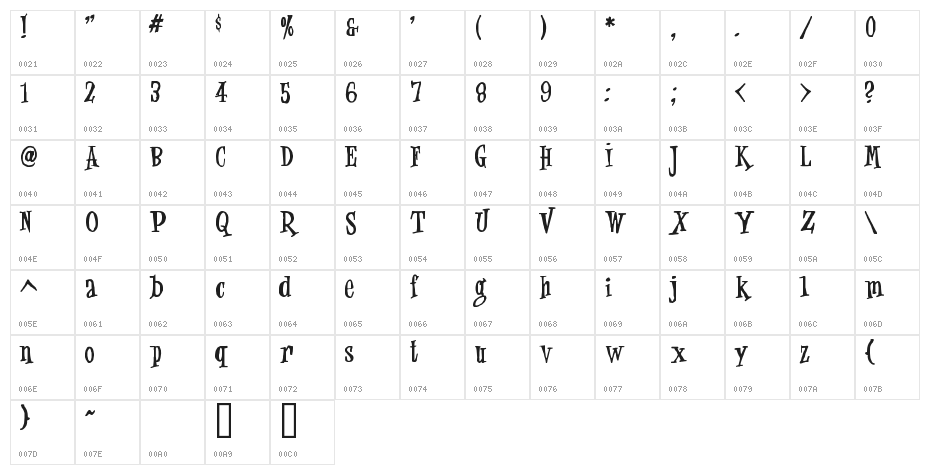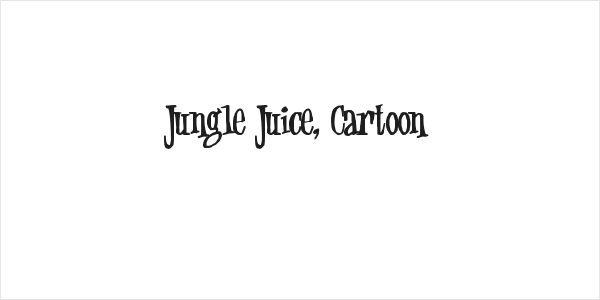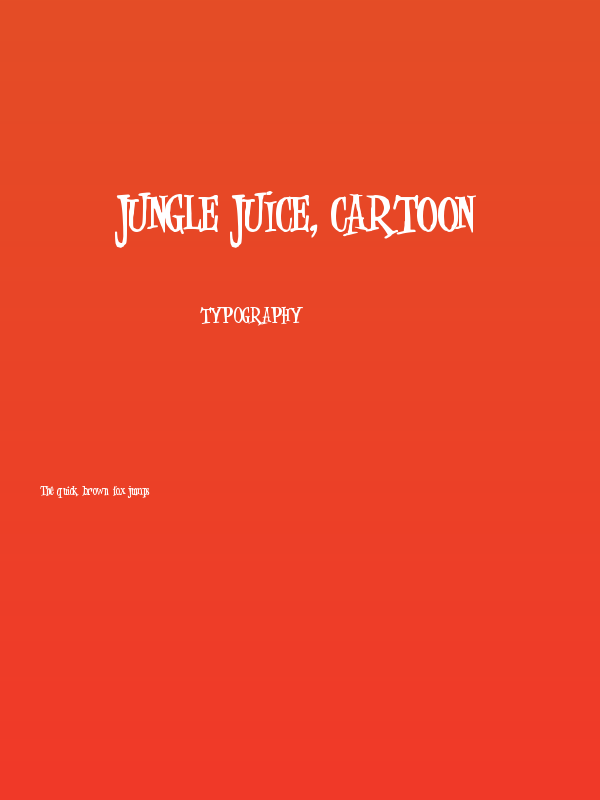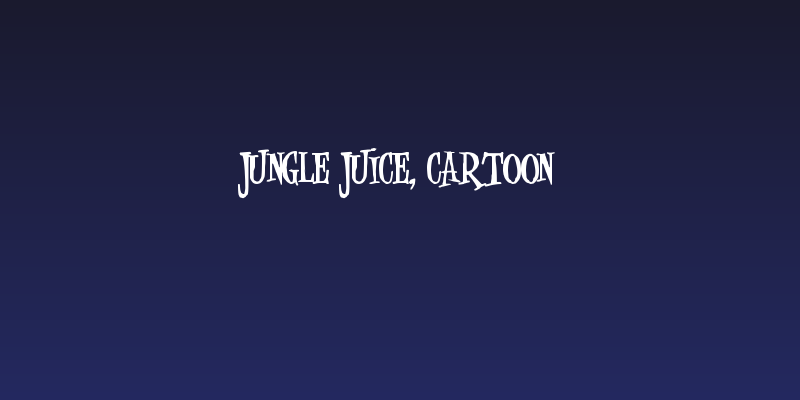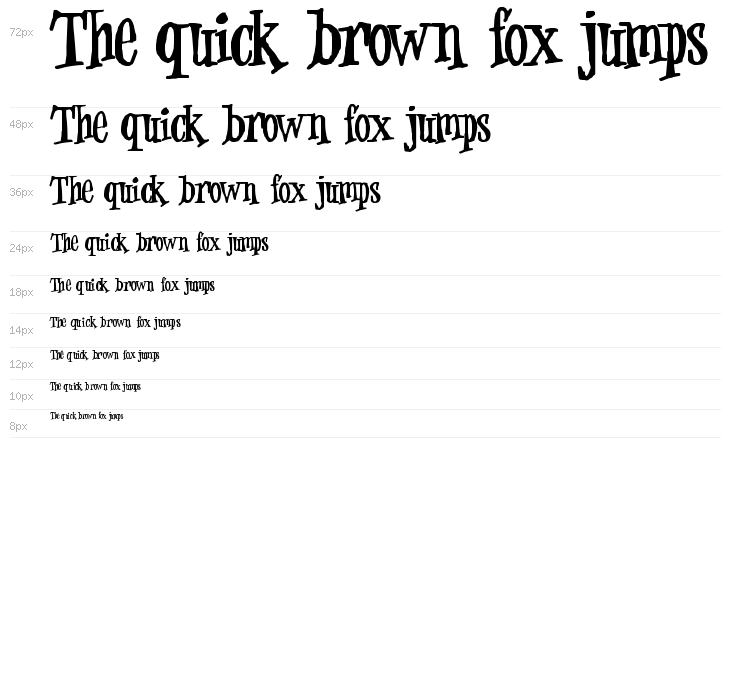
Jungle Juice, Cartoon Font
Jungle Juice, Cartoon Description
This playful and whimsical font features exaggerated curves and irregular shapes, giving it a lively and cartoonish appearance. The uppercase letters are bold and dynamic, with varying stroke widths that add to the font's energetic feel. The lowercase letters maintain the same playful style, with unique character shapes that enhance its quirky personality. Numbers and special characters are equally expressive, making this font ideal for creative and fun designs. Its overall style is reminiscent of hand-drawn illustrations, perfect for projects that require a touch of humor and creativity.
| Overall Style | Cartoonish, Whimsical |
| Proposed Projects | Ideal for children's books, comic strips, playful branding, and creative posters. |